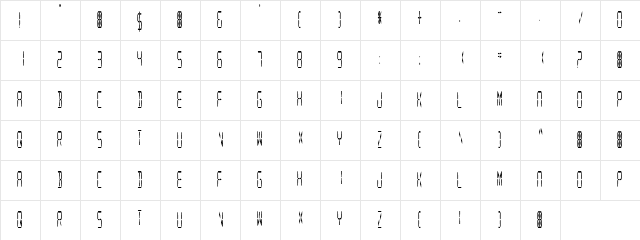
Digital Readout CondUpright Regular Font Preview
Design Context for Digital Readout CondUpright Typeface
Digital Readout CondUpright has a distinctly futuristic character, with geometric precision and clean angles that feel at home in technology, gaming, and sci-fi contexts. Its narrow stance lets it pack a punch even in space-constrained designs.